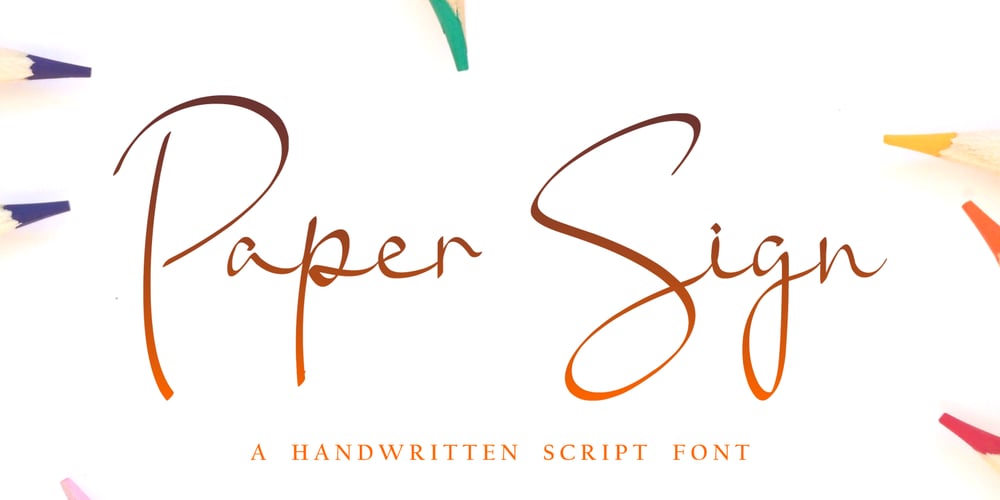
Paper Sign Font Family was designed by Alief Syahru and published by Arukidzfl. Paper Sign contains 1 styles and family package options. Paper Sign is a new, modern, and fresh script with a handwritten and style making this font look elegant, natural, stylish and perfect for any awesome project that need a handwritten taste. Paper Sign would perfect for photography, watermark, social media posts, advertisements, logos & branding, invitation, product designs, label, stationery, wedding designs, product packaging, special events or anything that need handwriting taste.